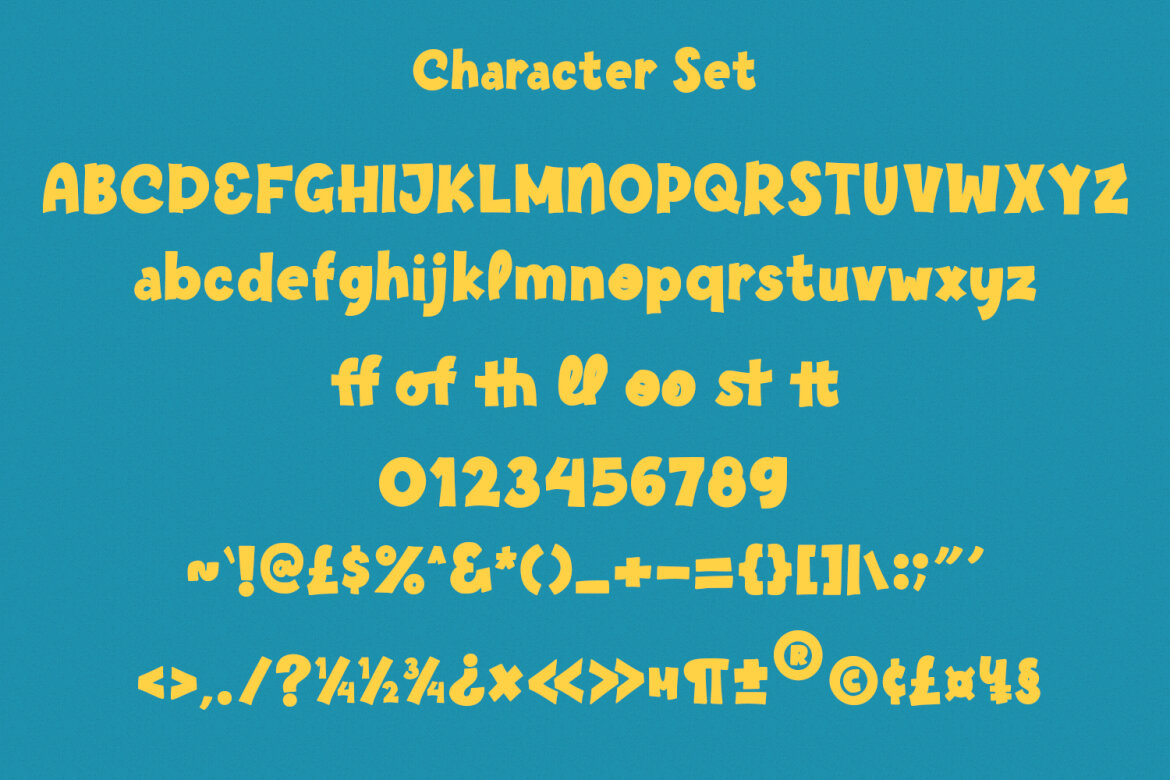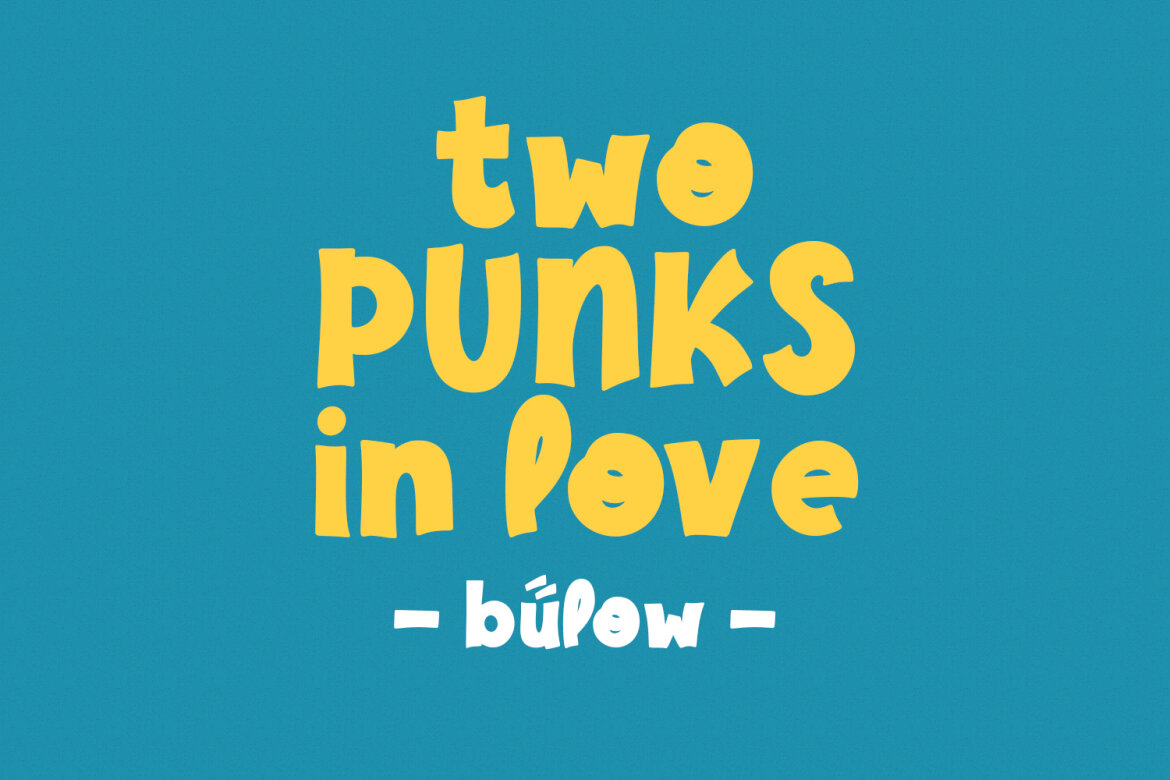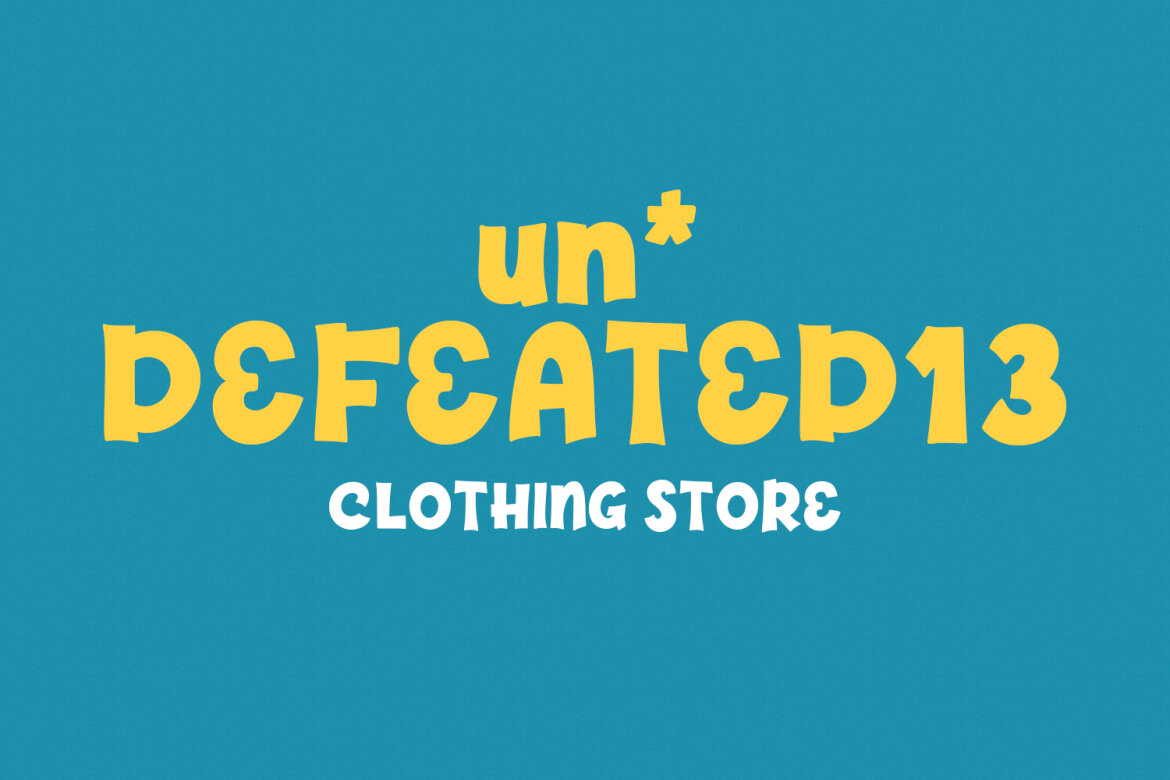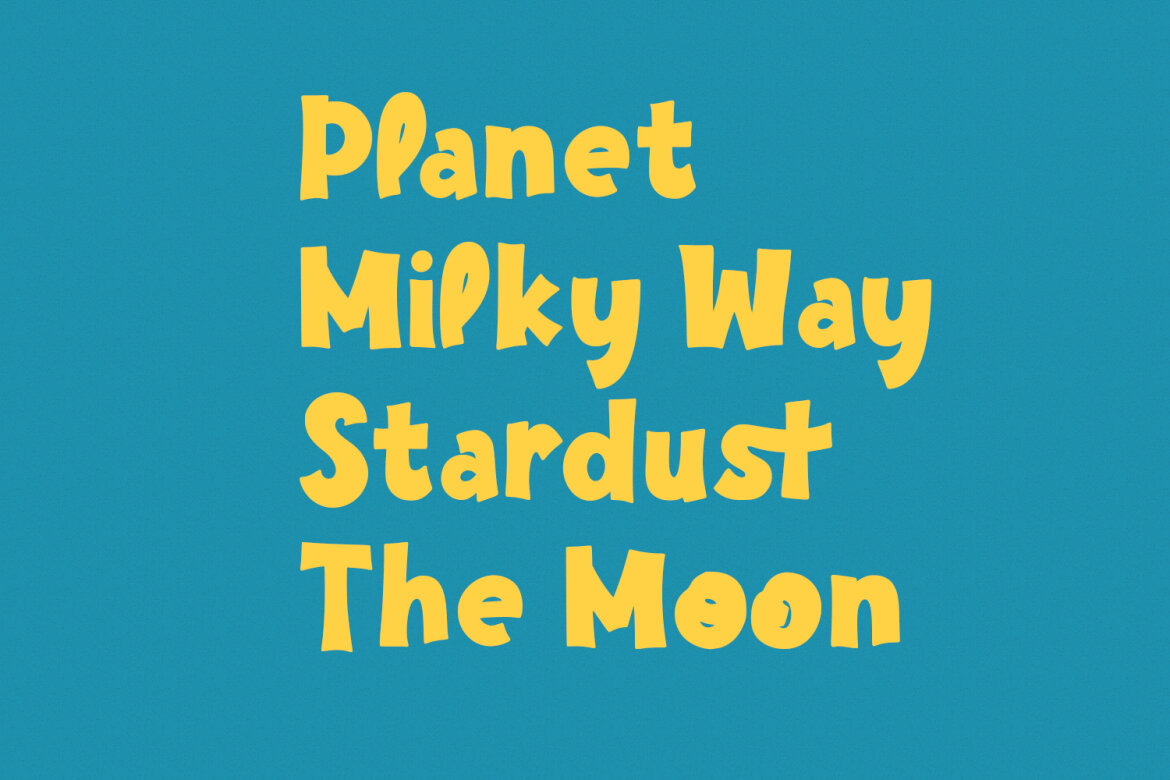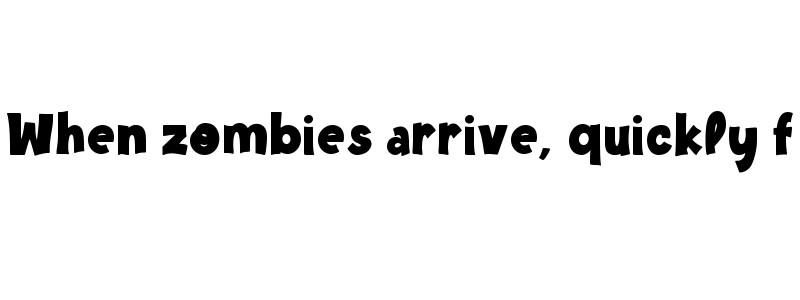
Eachtar Typefaces FREE Handwritten Font
Eachtar
Eachtar is a handwritten display font. With medium low contrast stroke, fun character with a bit of ligatures and alternates. To give you an extra creative work. Eachtar font support multilingual more than 100+ language. This font is good for logo design, Social media, Movie Titles, Books Titles, a short text even a long text letter and good for your secondary text font with sans or serif. Make a stunning work with Eachtar font.